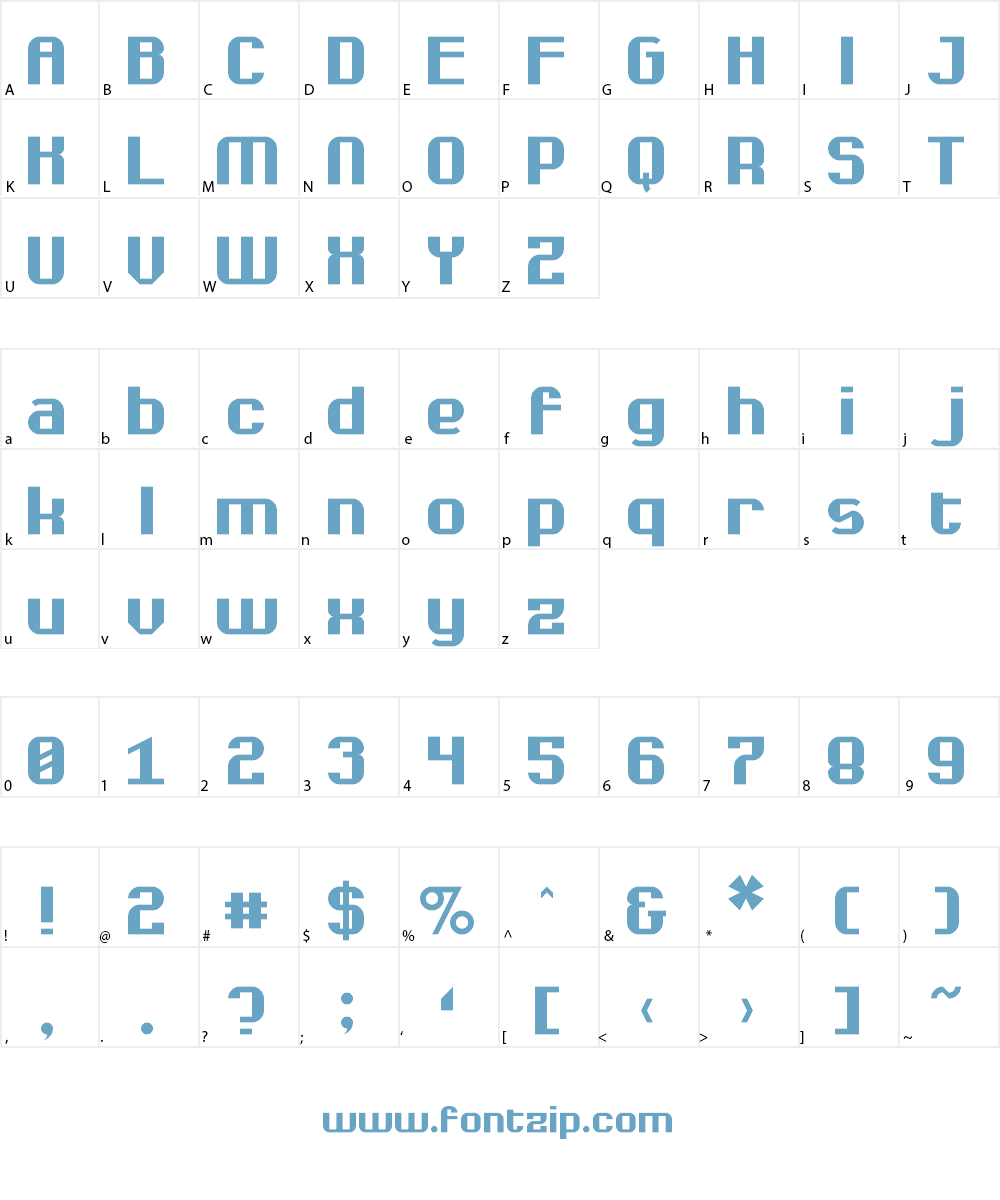
A combination of deco, sci-fi and modern elements. Supports Danish, Dutch, English, Finnish, French, German, Hungarian, Icelandic, Norwegian, Portuguese, Spanish, and Swedish!